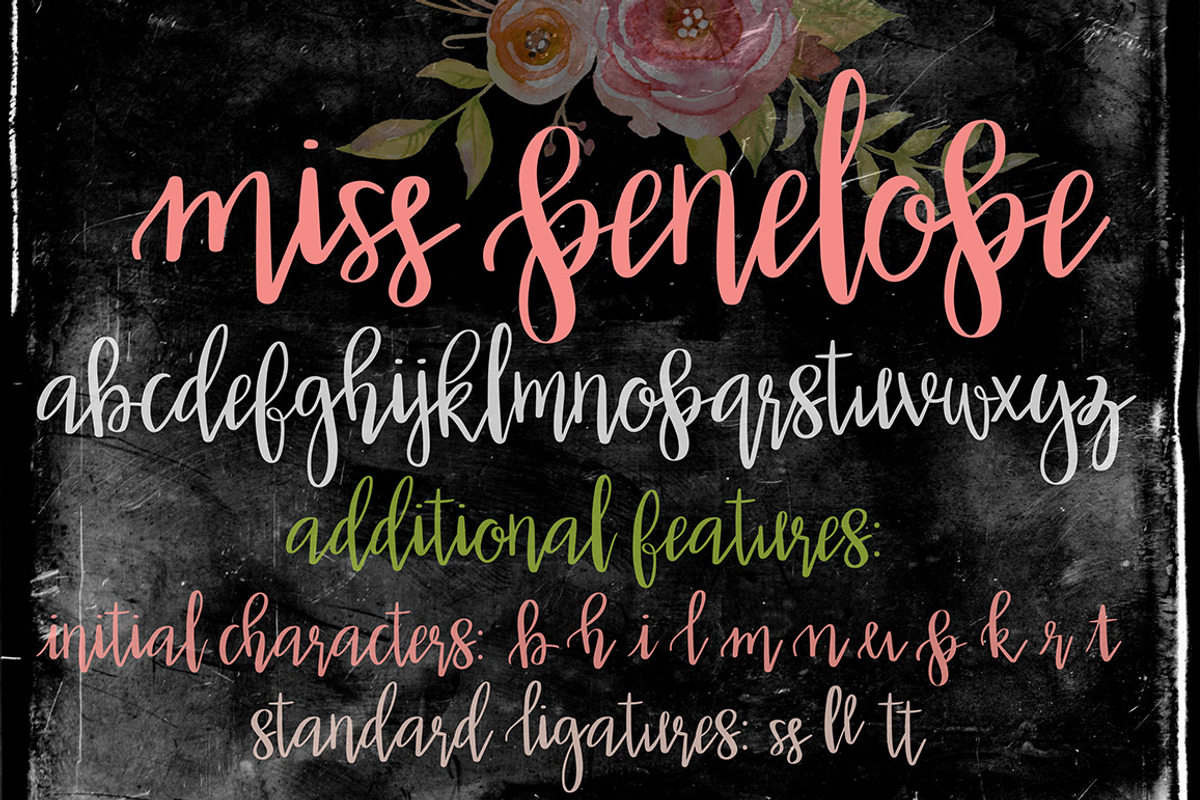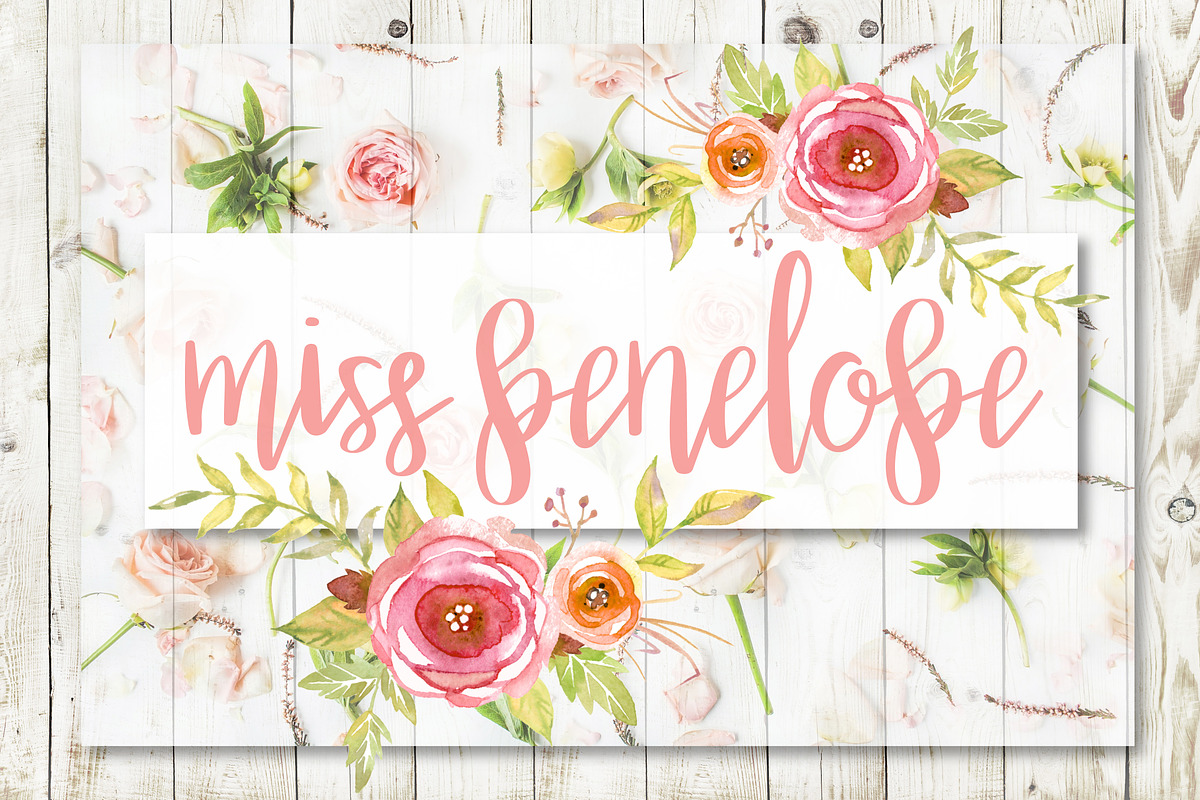
Miss Penelope Script Font
Introducing a fancy but not serious handwritten script font-Miss Penelope!
Perfect for greeting cards, branding, stationery, social media, scrapbooking, prints and more!
Miss Penelope has: 10 initial characters, and 3 standard ligatures.
Miss Penelope Script Font by Miss Kate fits naturally into Branding, posters, packaging, typography.